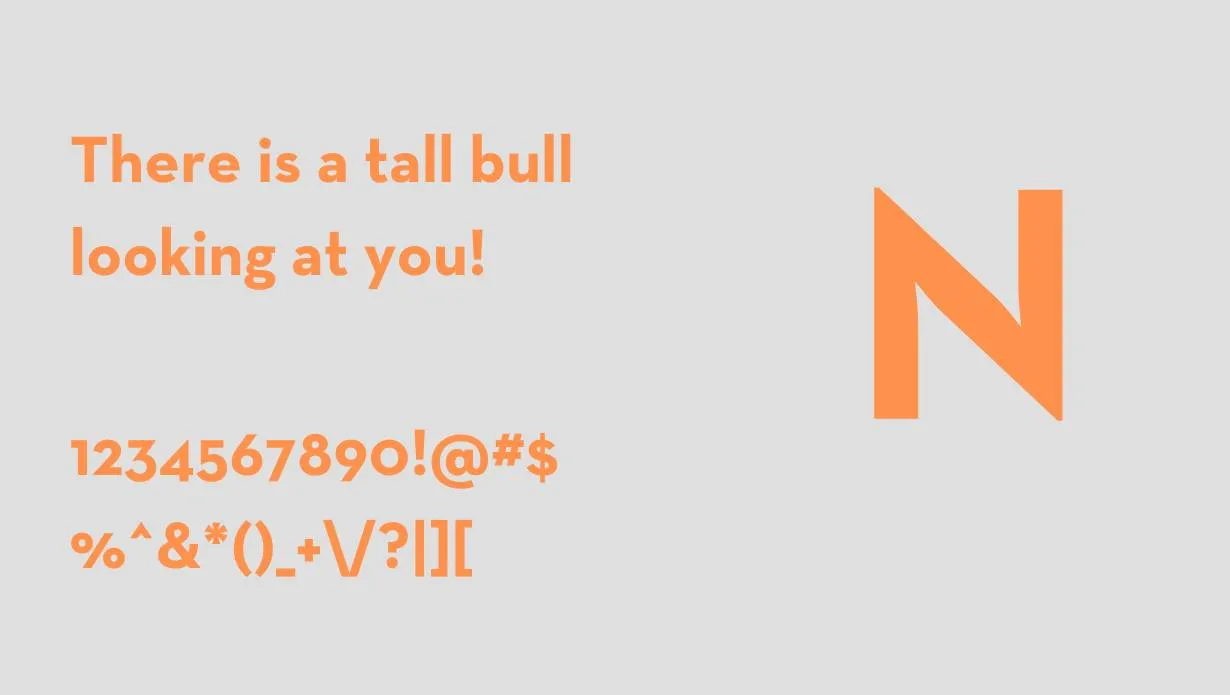
Neutraface Text Font is reminiscent of a font that embodies a modern and sleek aesthetic, similar to the design of a chic magazine. It boasts a clean and polished appearance, making it ideal for projects requiring a contemporary and professional look.
This font is like the cool and sophisticated friend in your group, always on point and stylish. When you want your designs to scream modernity, Neutraface Text is the font that says it elegantly.
• Neutraface Text Light
• Neutraface Text Book
• Neutraface Text Medium
• Neutraface Text Bold
DesignerChristian Schwartz
StyleSans-Serif